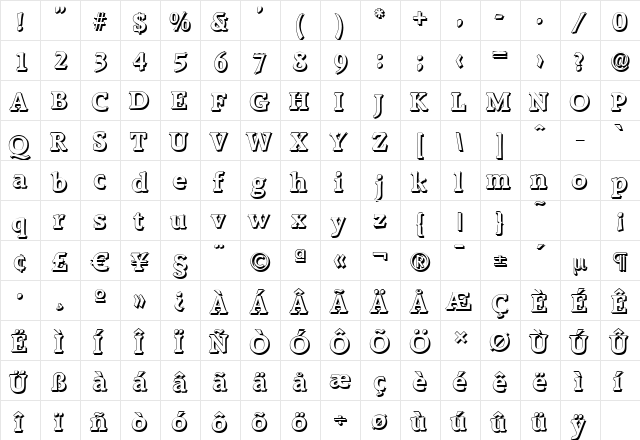
RaleighShadow Bold
Design Context for RaleighShadow Typeface
RaleighShadow is built around its visual character rather than neutral utility — its distinctive forms are designed to make an impression at display sizes. The heavy weight commands attention and anchors typographic hierarchies.
Font Pairing: Pair with a clean neutral sans-serif for body copy to let RaleighShadow's character lead without overwhelming the composition.
Pro Tip: Use RaleighShadow exclusively at display sizes — it was designed to be seen, not read at length. Let a neutral companion handle body copy.